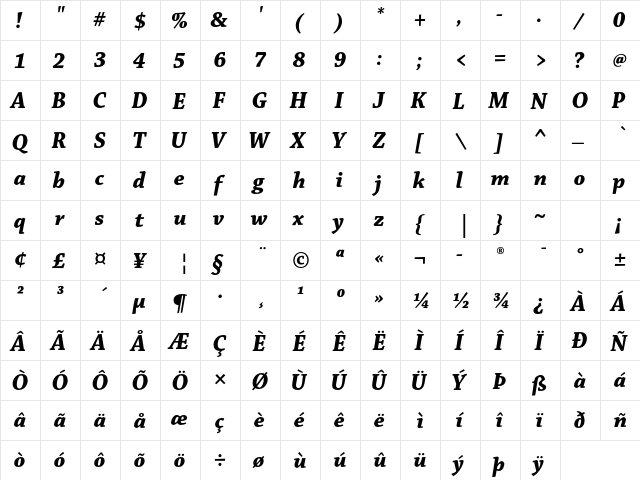
Chaparral Pro Bold Italic Display Font Preview
| Designer | Carol Twombly |
Design Context for Chaparral Pro Typeface
Chaparral Pro is built around its visual character rather than neutral utility — its distinctive forms are designed to make an impression at display sizes. The dynamic lean of this cut emphasises speed and emphasis in any layout. Its bold stroke weight gives it real presence on the page.
Font Pairing: Pair with a clean neutral sans-serif for body copy to let Chaparral Pro's character lead without overwhelming the composition.
Pro Tip: Use Chaparral Pro exclusively at display sizes — it was designed to be seen, not read at length. Let a neutral companion handle body copy.